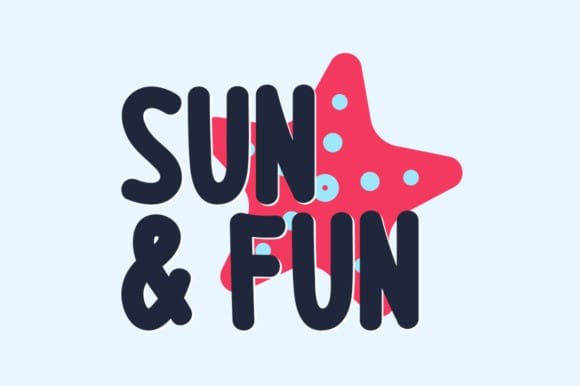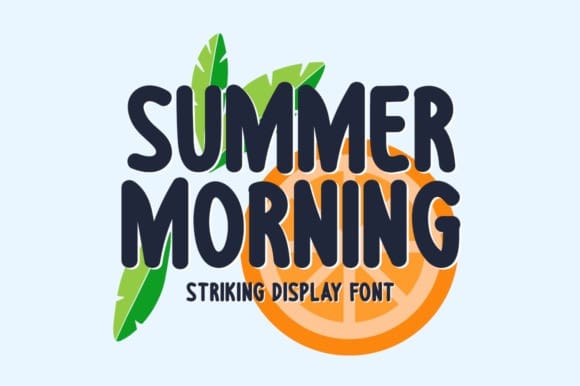
Summer Morning Font
Summer Morning Font is a striking, bold display font. It can easily be matched to an incredibly large set of projects, so add it to your creative ideas and notice how it makes them stand out!